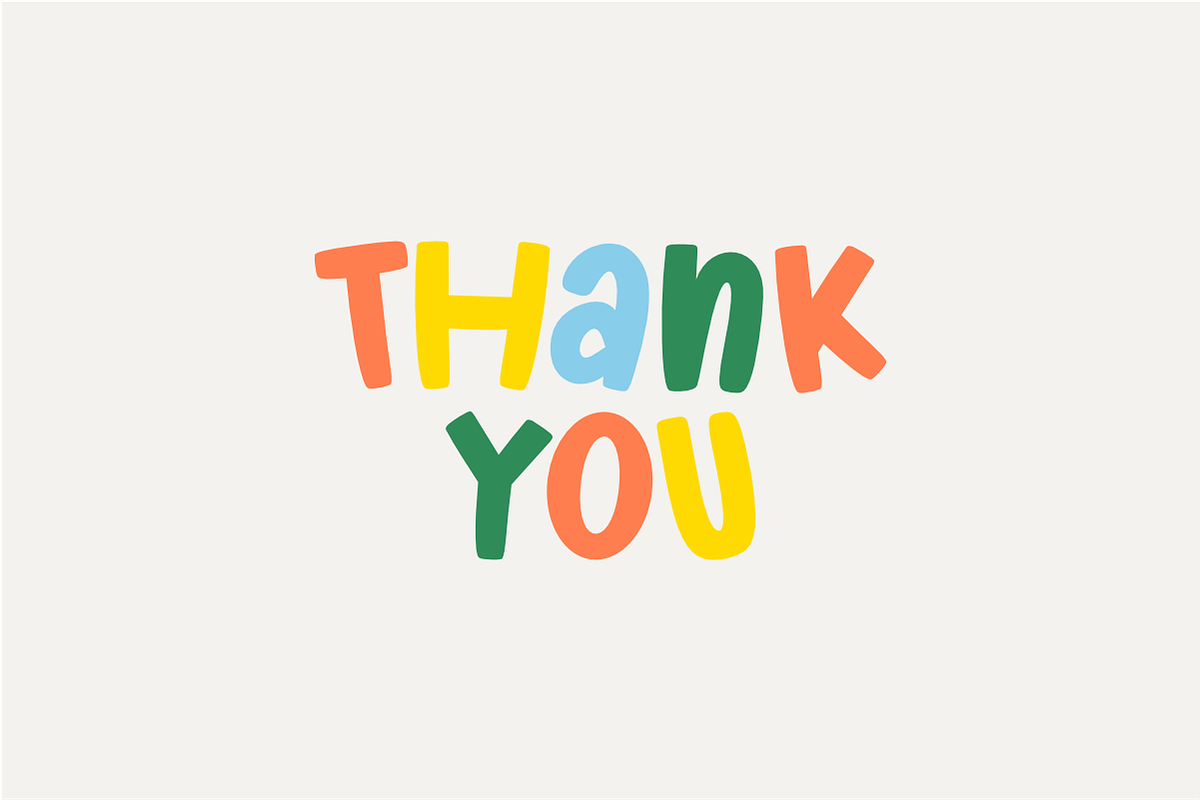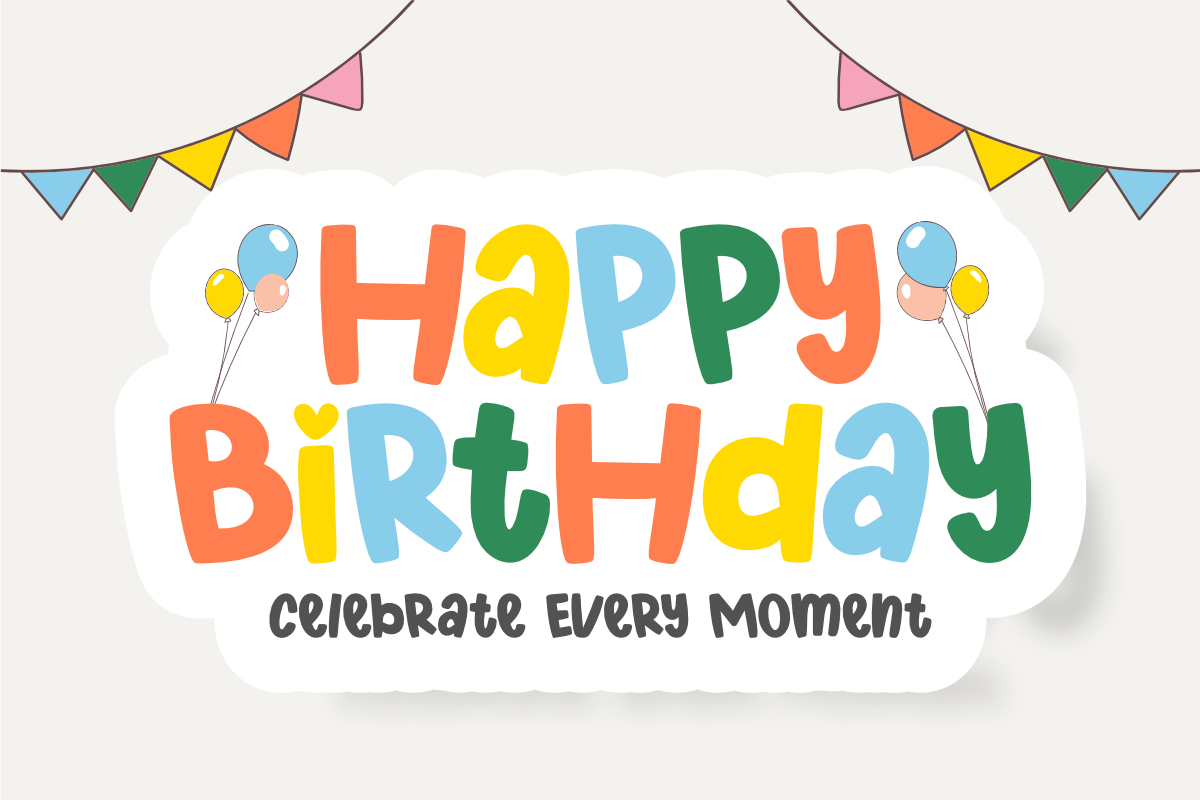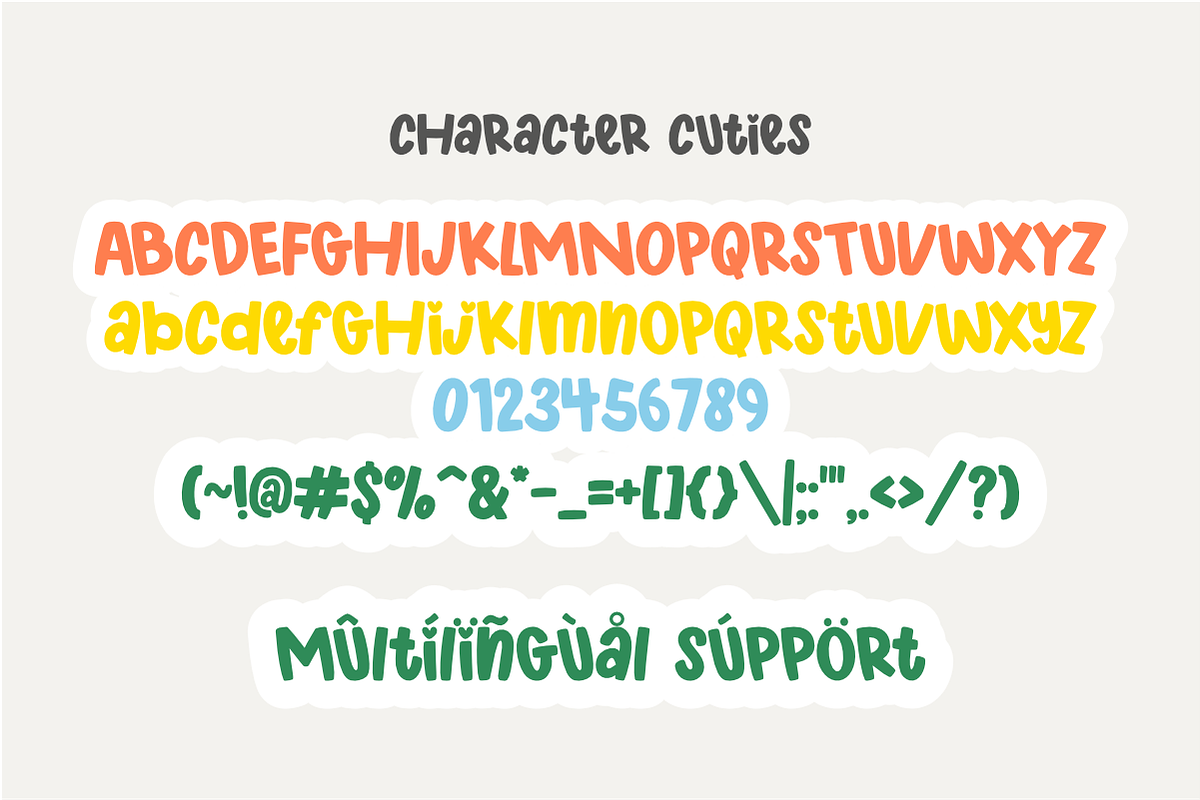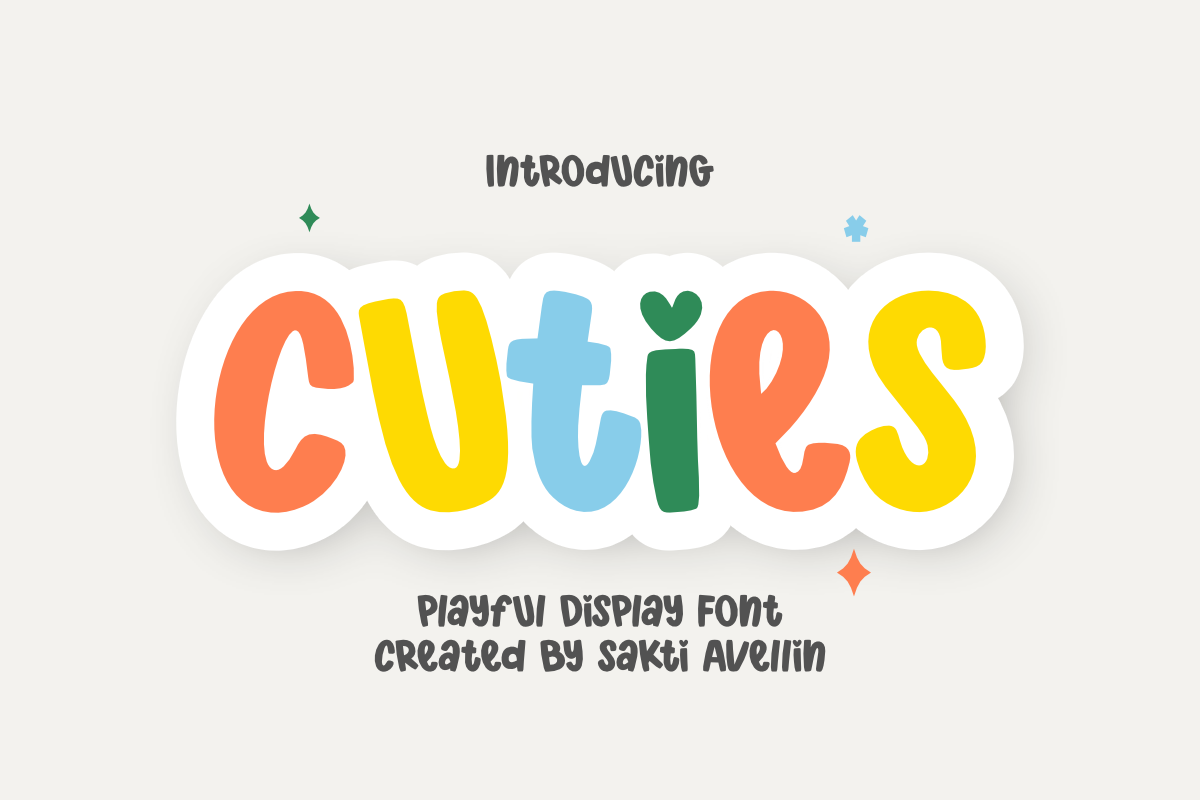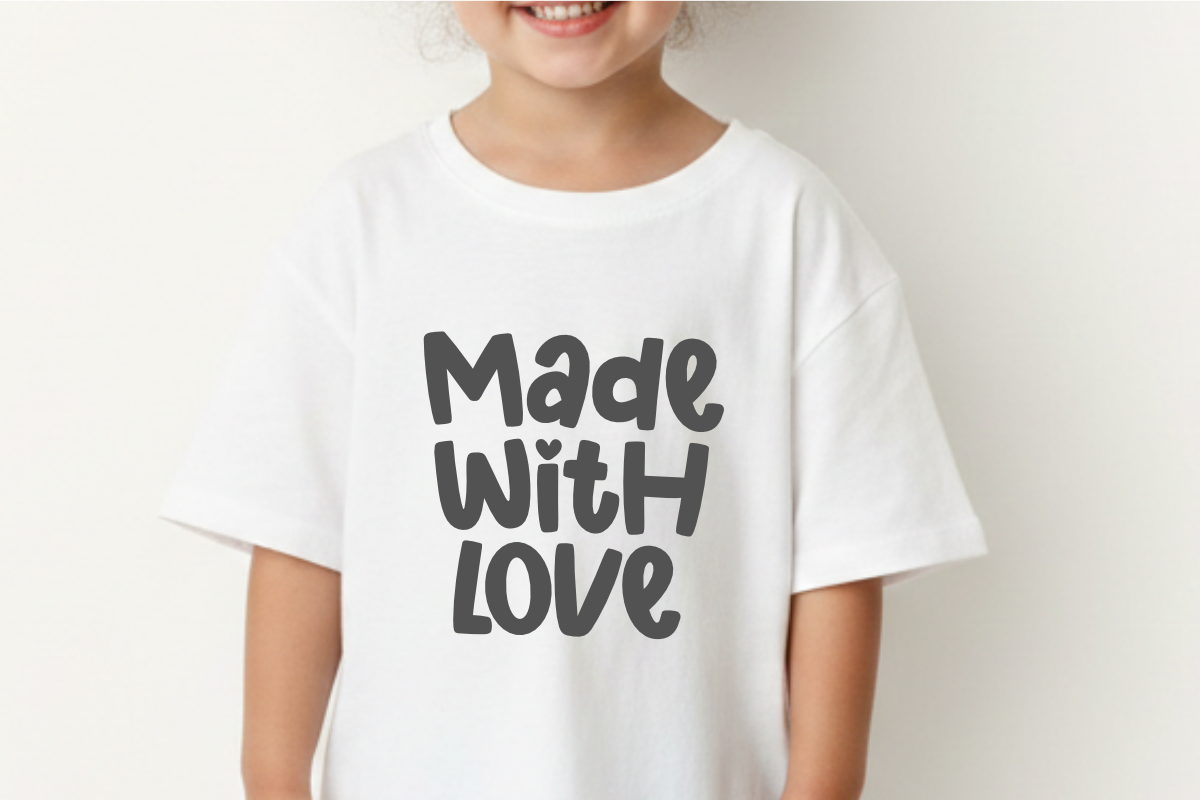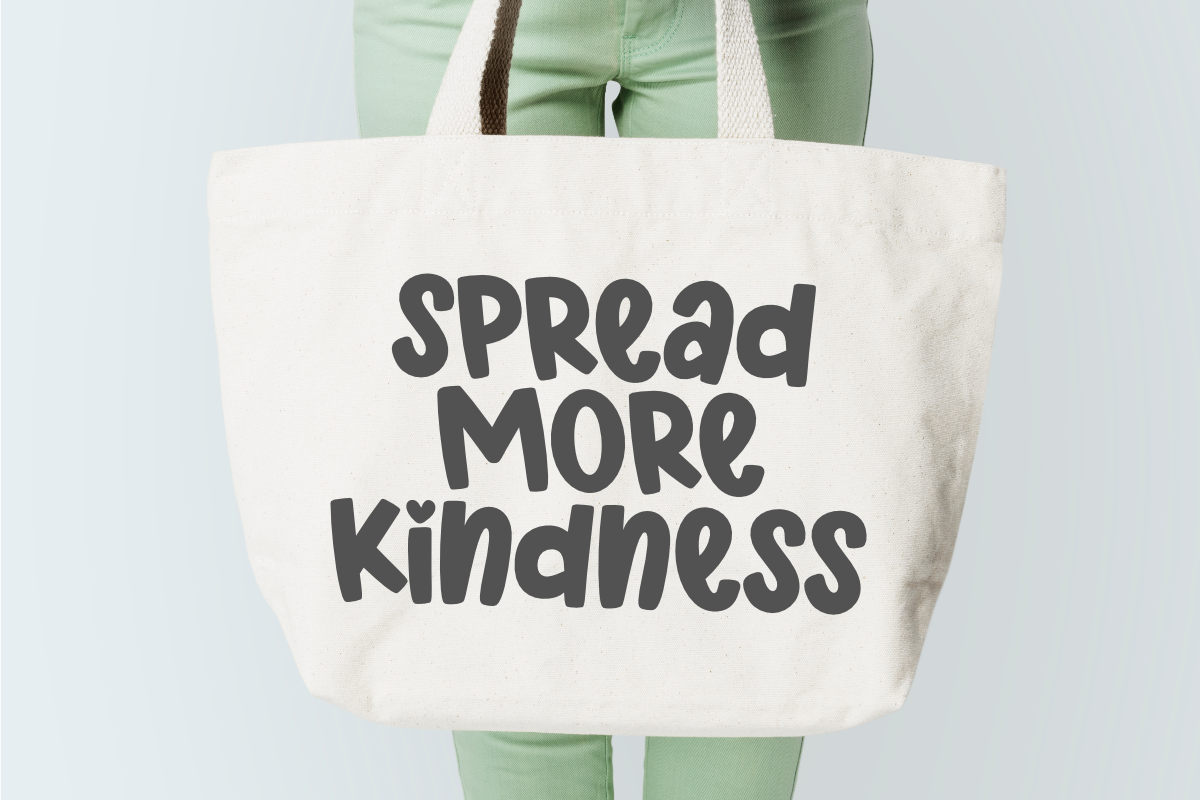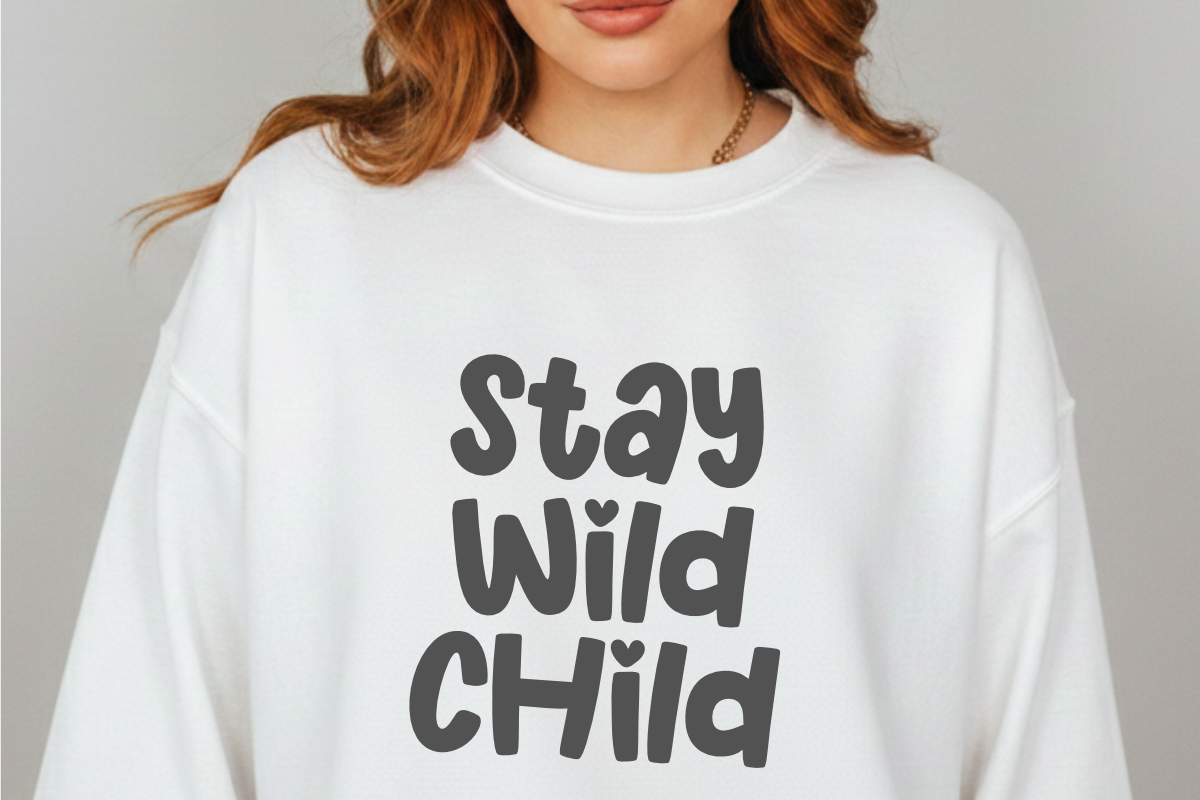
Cuties - Playful Display Font
Cuties is a charming and lively playful display font designed to bring a joyful, imaginative energy to your creative projects. This delightful typeface features bold, bubbly letterforms with cute accents, making it an ideal choice for children's branding, colorful stickers, nursery decor, birthday invitations, toy packaging, and cheerful social media graphics. Its balanced and organic aesthetic ensures your headlines stand out with a distinct handcrafted personality. Whether you are creating school crafts, whimsical apparel, or playful stationery, Cuties adds a lovely and creative touch to every design.